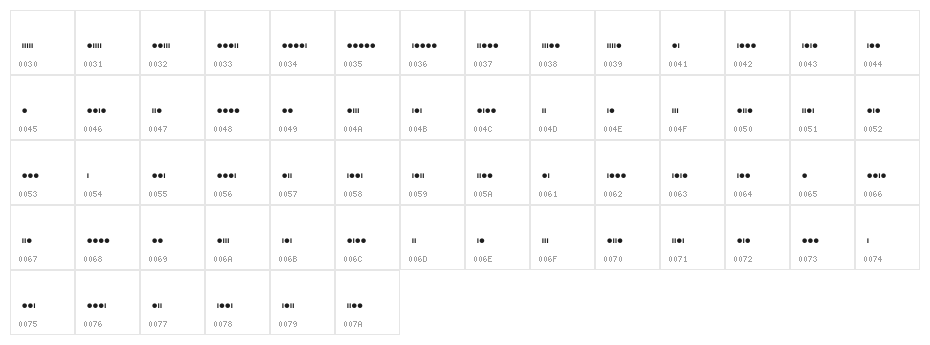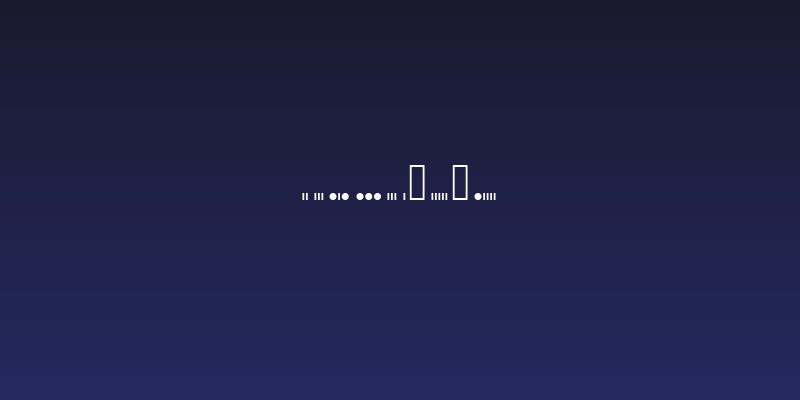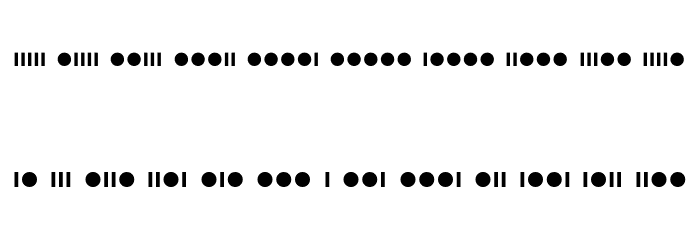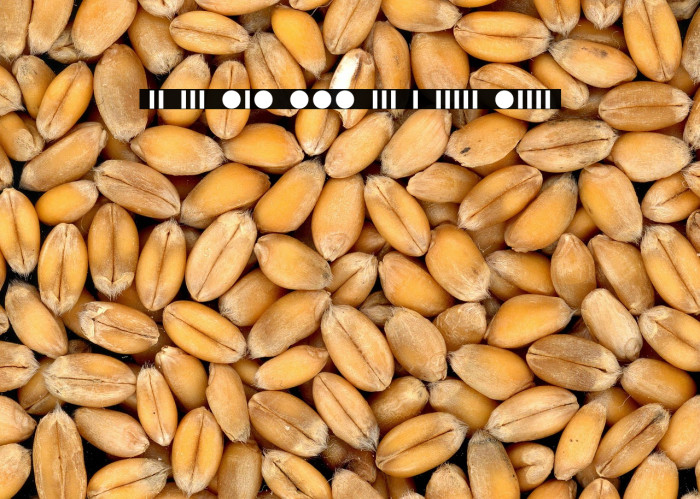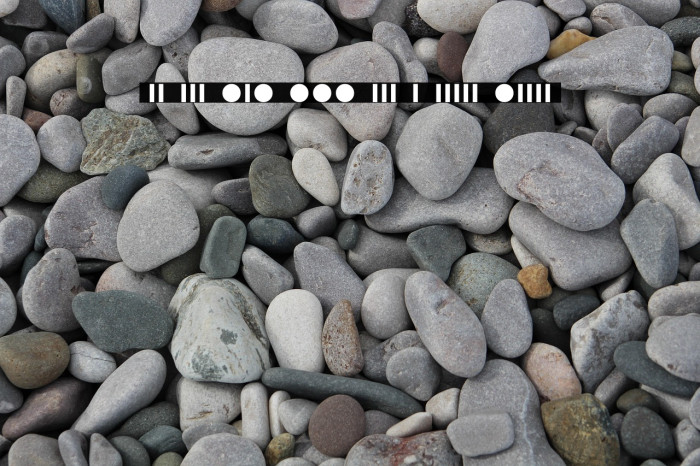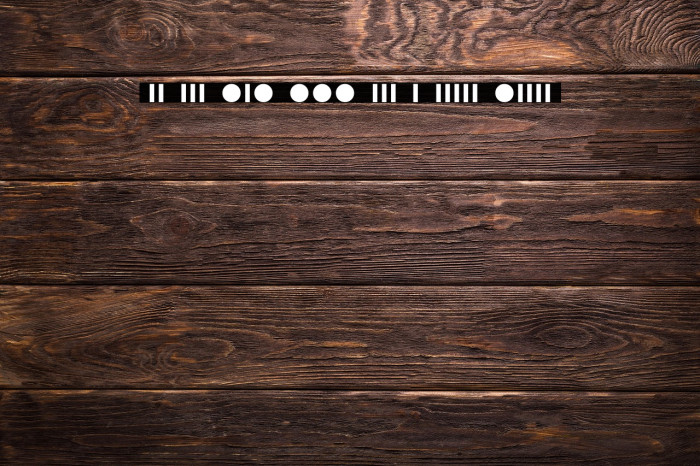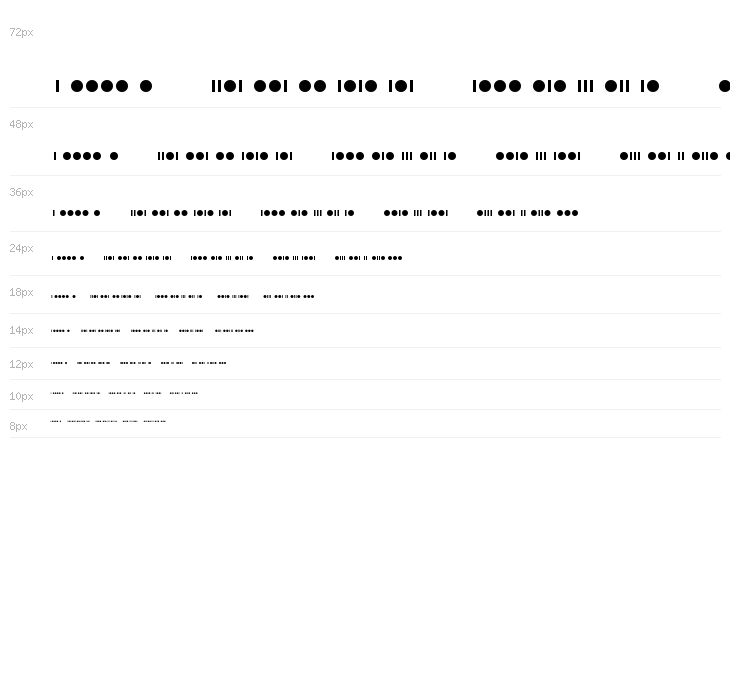
Morsot_0.1 Font
Morsot_0.1 Description
This is not a valid font. The image appears to display a series of dots and dashes, resembling Morse code rather than a traditional font. Each character is represented by a unique combination of these symbols, which are not readable as standard alphanumeric characters or symbols typically found in a font set.